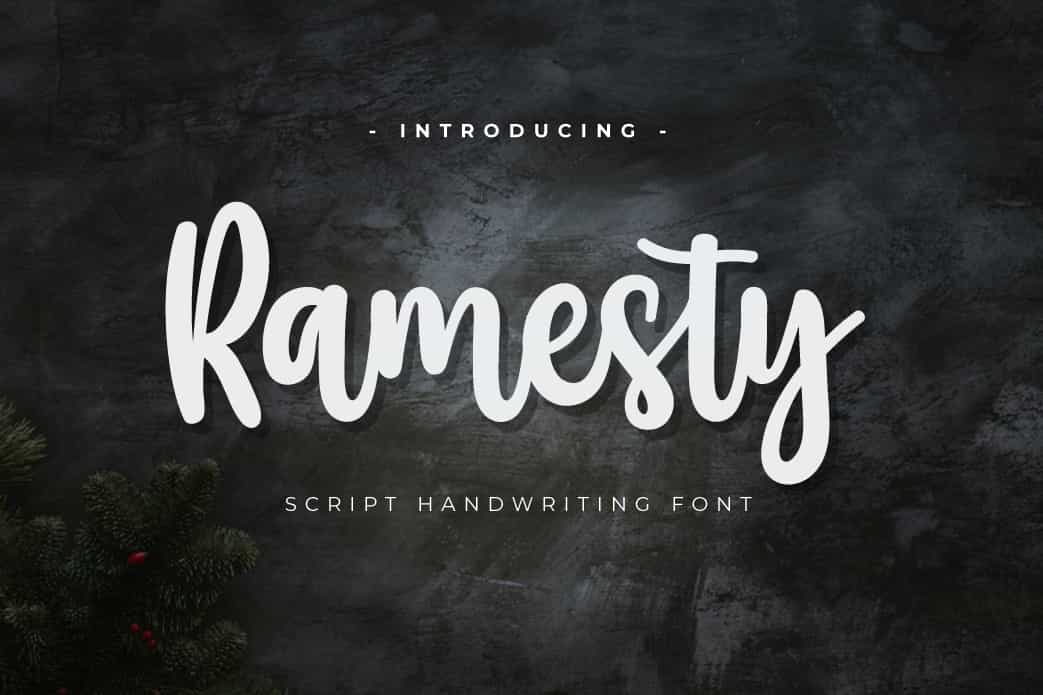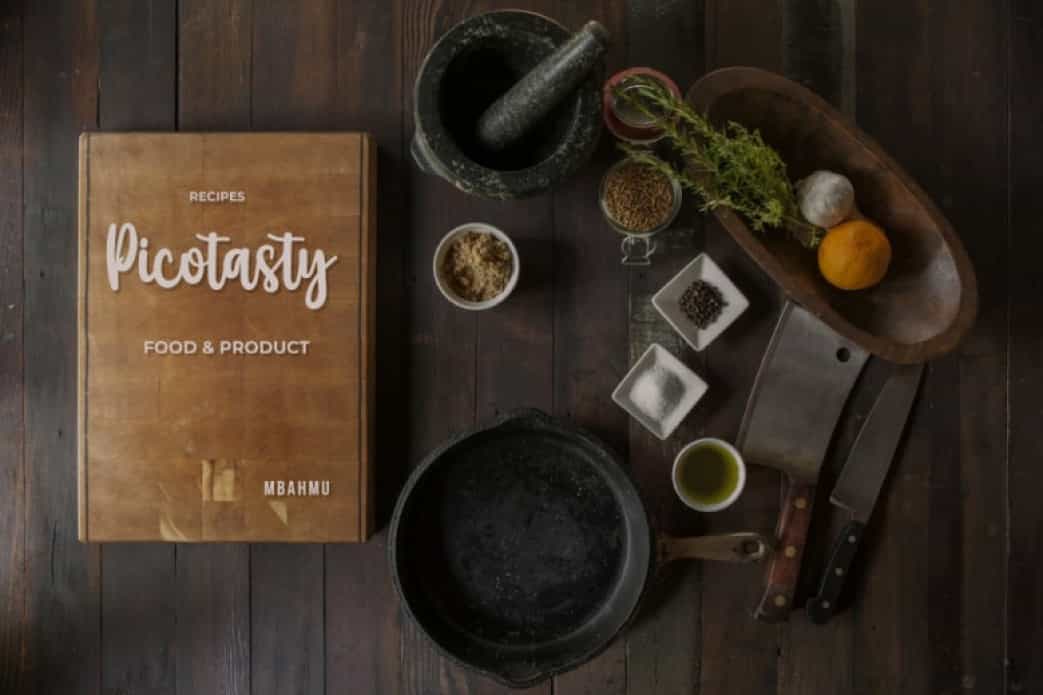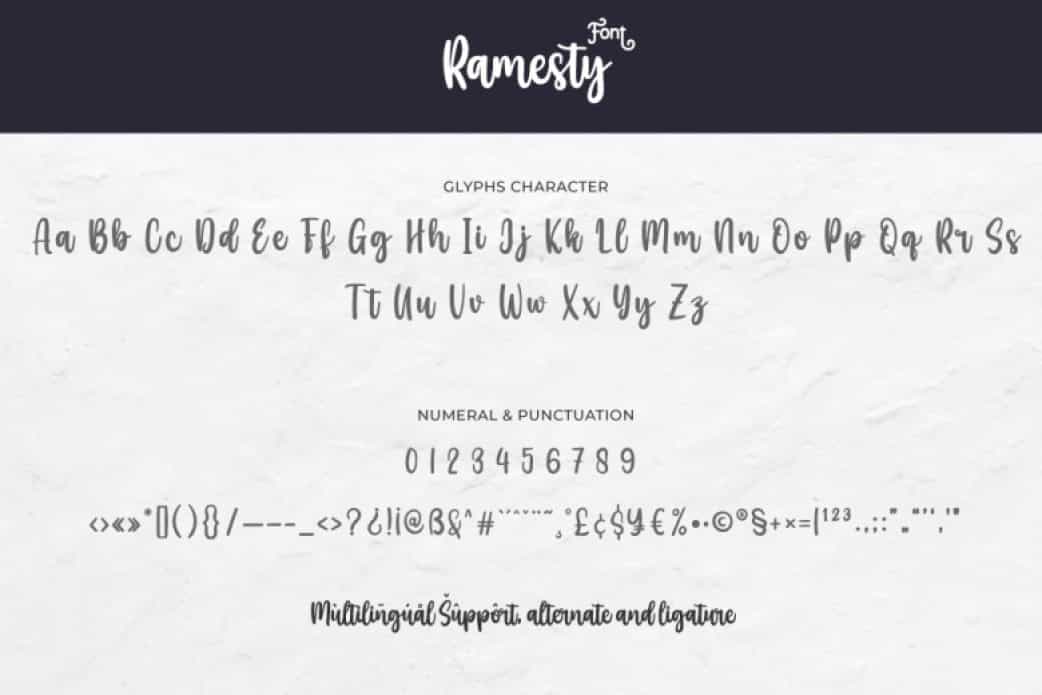
RAMESTY delivers a classy and pretty font family for use in any form of writing; suitable for designs that need handwritten elements or designing of items with a handwriting touch. Also, Ramesty was designed with natural writing style enhanced for improvement to provide an element that fits all your requirements.